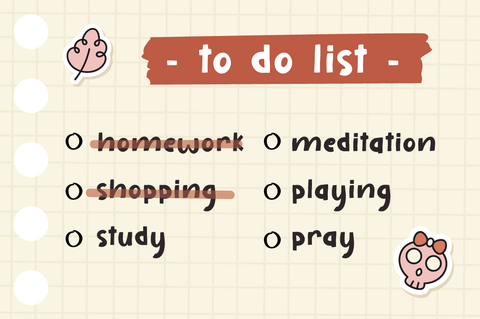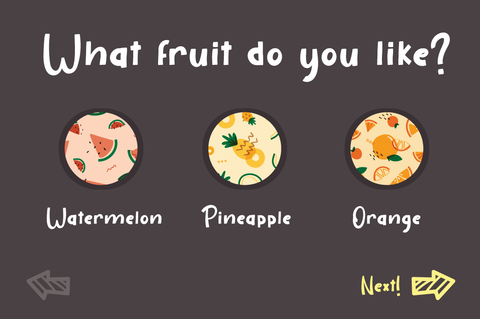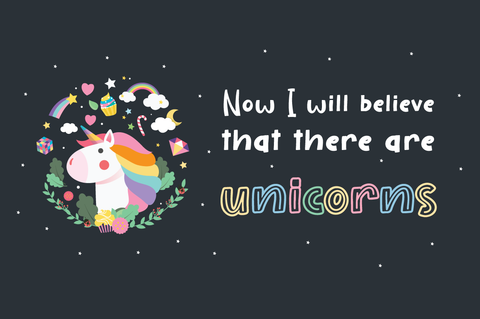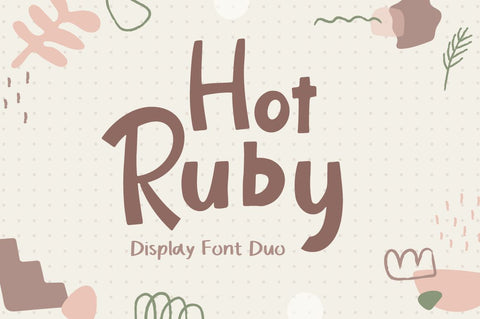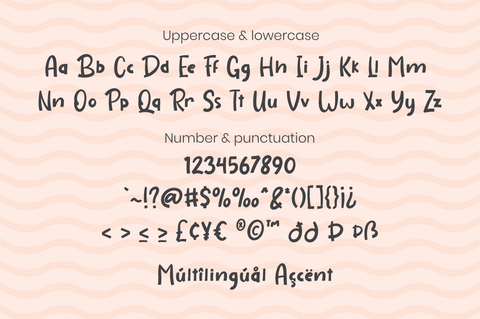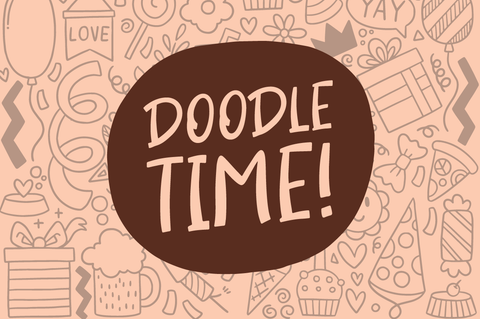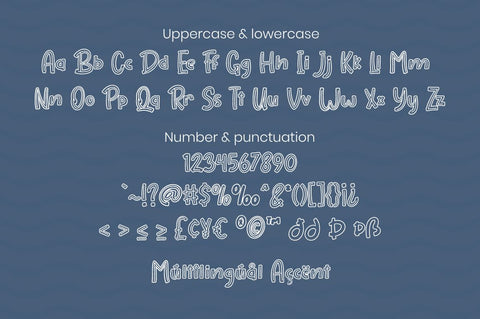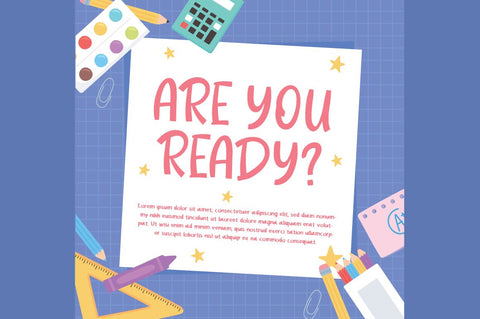
Hot Ruby - Font Duo
Hot Ruby is a Handwritten font duo. Regular & Outline Version.
Perfect for any business logo, brand and use it to create spectacular designs!
Hot Ruby is perfect for branding, logo, invitation, stationery, social media post, product packaging, merchandise,
blog design, game titles, cute style design, Book/Cover Title and more.
- Ending Swash